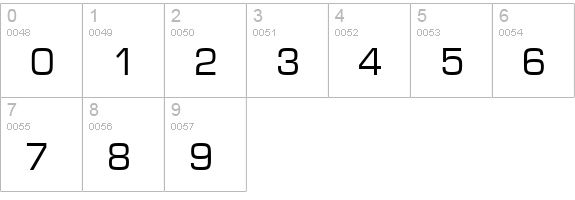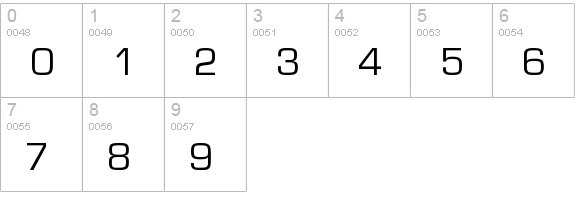
EurostileT is a modern and stylish typeface that exudes a sleek and sophisticated aesthetic. With its distinctive geometric shapes and clean lines, this versatile font is perfect for a wide range of design projects, from branding to editorial layouts. The bold and futuristic look of EurostileT makes it ideal for conveying a sense of professionalism and cutting-edge style. What's even better is that EurostileT is available for free download at FontsMarket.com. So whether you're a graphic designer looking to add a fresh touch to your projects or a business owner wanting to make a bold statement with your branding, EurostileT is the perfect choice. Download it today and elevate your designs with this modern and eye-catching font.